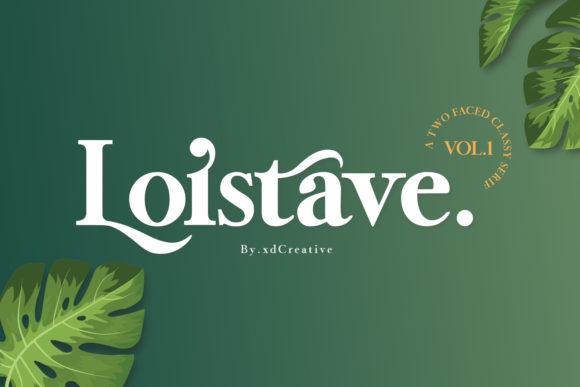
Prepare to be awestruck by Loistave, a font that is the epitome of elegance and finesse. Let your creativity blossom as you discover the boundless possibilities that lie within this serif masterpiece. Crafted by the skilled hands of xdCreative, Loistave is a symphony of smooth curves, exuding an aura of sophistication that will elevate your projects to new heights. Its versatility knows no bounds, making it an ideal choice for fashion branding, editorial designs, and any endeavor that demands a touch of class. With Loistave as your creative companion, you can weave tales of love and joy, capture the essence of timeless beauty, and create designs that radiate elegance. Let Loistave be the conductor of your artistic symphony and witness the magic unfold.